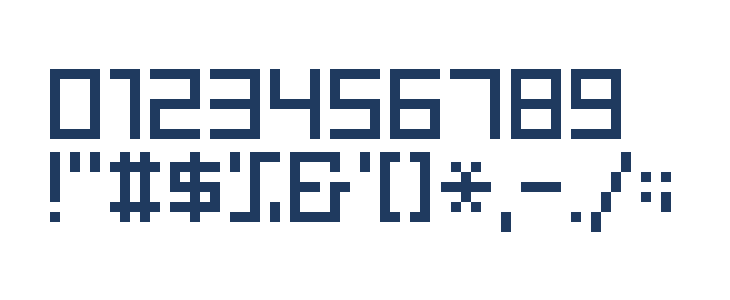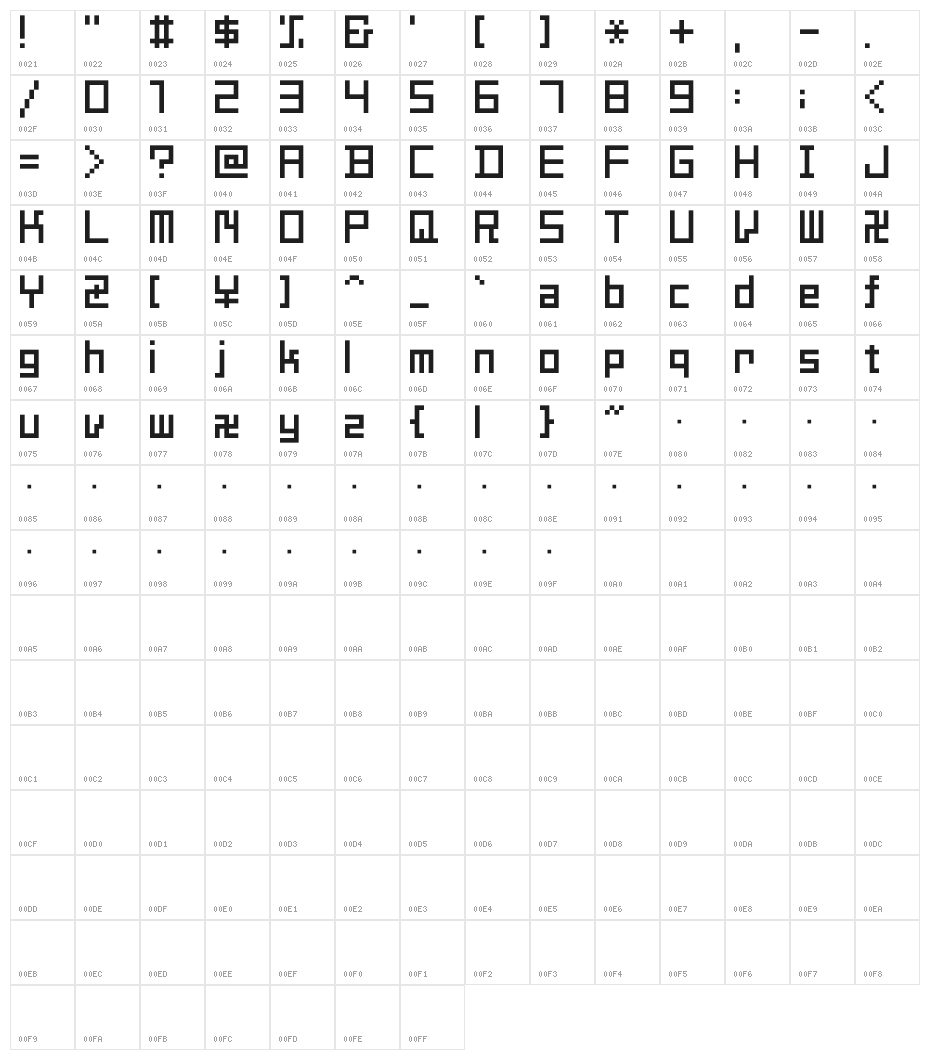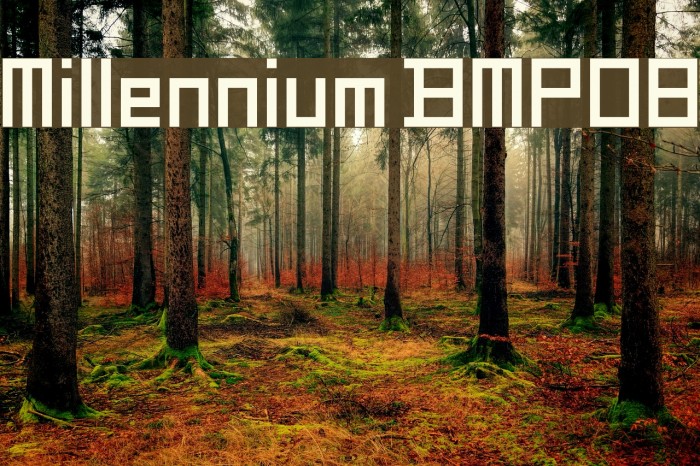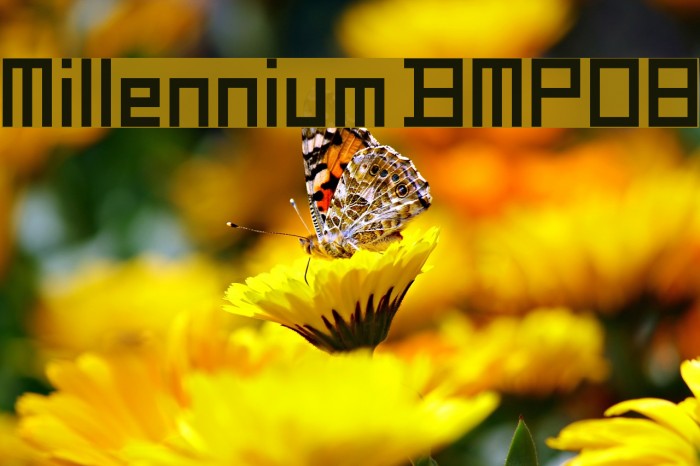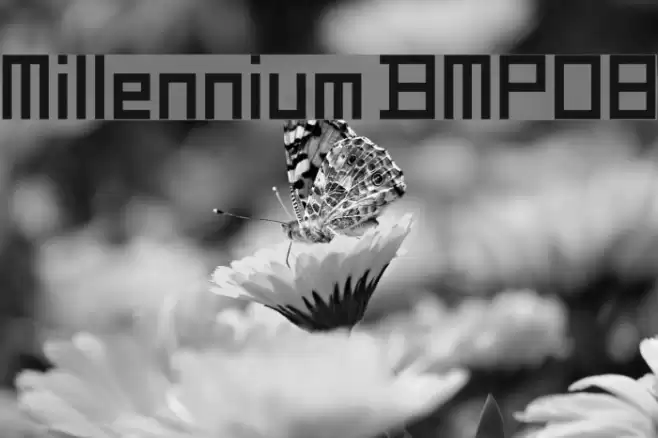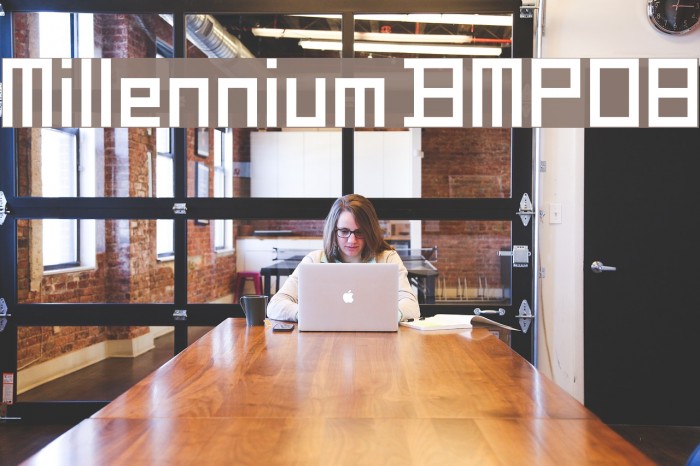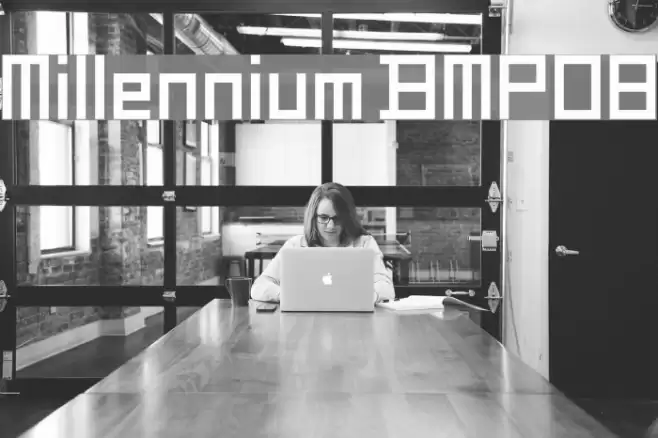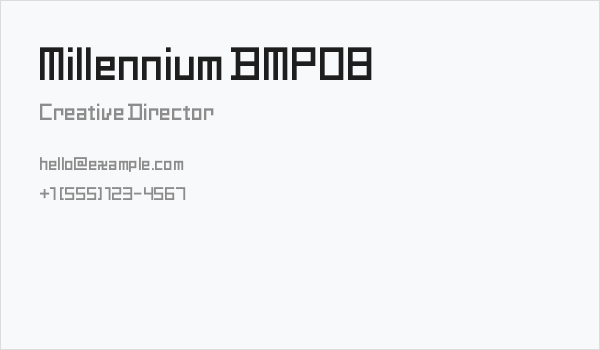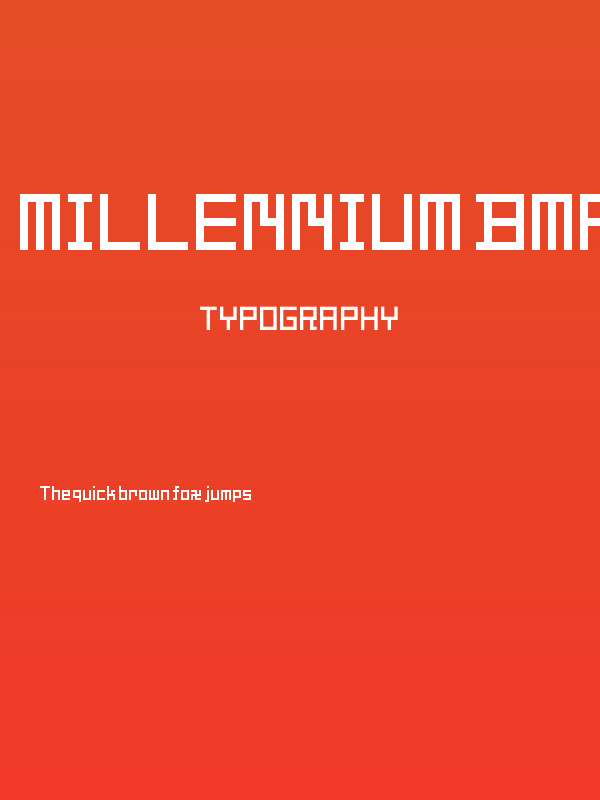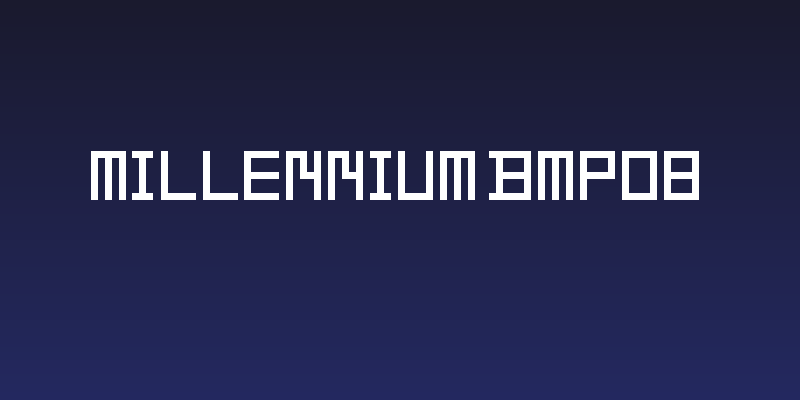
Millennium BMP08 Font
Millennium BMP08 Description
This font embodies a pixelated, retro aesthetic reminiscent of early digital displays and video games. Its blocky, geometric shapes are consistent throughout both uppercase and lowercase letters, as well as numbers and special characters. The uniformity in stroke width gives it a monospaced appearance, making it ideal for digital and tech-themed projects. The characters are well-defined with sharp edges, providing a clear and legible text style that stands out in both small and large sizes. The font's nostalgic charm is perfect for projects that aim to evoke a sense of vintage computing or retro gaming.
| Use Case | Logos, Headlines, Digital displays |
| Proposed Projects | Ideal for retro gaming designs, digital art, tech-themed posters, and nostalgic branding. |